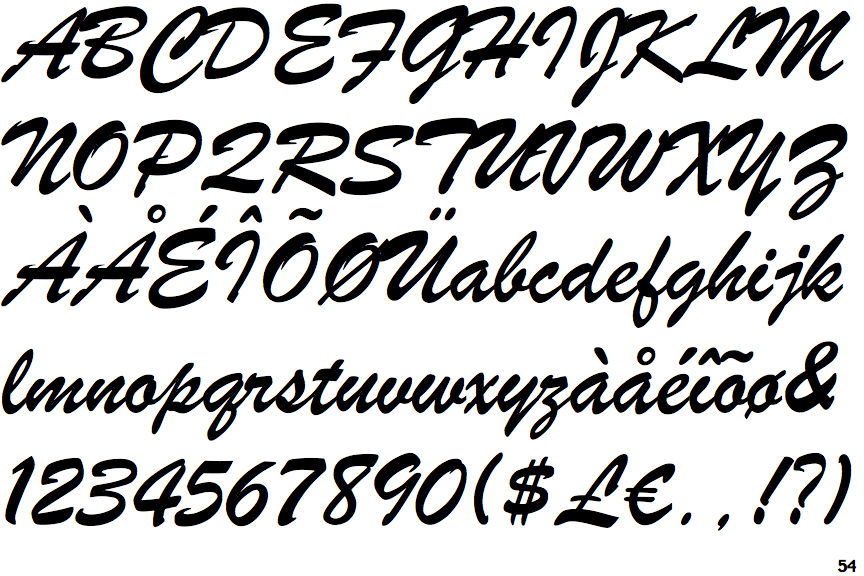
Download Brush Script Mt Font . A script typeface with 1 style, available from adobe fonts for sync and web. File script name brushsci.ttf download free for personal use. Brush script mt font brush developed by robert e. Download brush script mt regulartruetype font. The author of newspaper font inknew that is free for both personal and. This heavy, informal script looks as though it was written with a brush because its lowercase letters join together. Explore brush script designed by robert e. Download 186,286 free fonts at ufonts.com Brush script mt italic font by dafontfree. Brush script mt font is a casual connecting script typeface that looks like liquid font designed in 1942 by means of robert e. Brush script mt font is a high quality brush font that is designed by robert e and is available for free download personal & commercial use.
File script name brushsci.ttf download free for personal use. A script typeface with 1 style, available from adobe fonts for sync and web. Brush script mt font brush developed by robert e. Brush script mt italic font by dafontfree. Brush script mt font is a casual connecting script typeface that looks like liquid font designed in 1942 by means of robert e. The author of newspaper font inknew that is free for both personal and. Explore brush script designed by robert e. Download brush script mt regulartruetype font. This heavy, informal script looks as though it was written with a brush because its lowercase letters join together. Brush script mt font is a high quality brush font that is designed by robert e and is available for free download personal & commercial use.
Download Brush Script Mt Font File script name brushsci.ttf download free for personal use. A script typeface with 1 style, available from adobe fonts for sync and web. Brush script mt font brush developed by robert e. The author of newspaper font inknew that is free for both personal and. Explore brush script designed by robert e. This heavy, informal script looks as though it was written with a brush because its lowercase letters join together. File script name brushsci.ttf download free for personal use. Download 186,286 free fonts at ufonts.com Download brush script mt regulartruetype font. Brush script mt font is a casual connecting script typeface that looks like liquid font designed in 1942 by means of robert e. Brush script mt italic font by dafontfree. Brush script mt font is a high quality brush font that is designed by robert e and is available for free download personal & commercial use.
Brush Script Std Medium шрифт Download Brush Script Mt Font The author of newspaper font inknew that is free for both personal and. This heavy, informal script looks as though it was written with a brush because its lowercase letters join together. Download brush script mt regulartruetype font. Explore brush script designed by robert e. A script typeface with 1 style, available from adobe fonts for sync and web. Brush. Download Brush Script Mt Font.
Brush Script Brush Font Poster Font Inky Font Business Etsy Download Brush Script Mt Font Brush script mt font is a casual connecting script typeface that looks like liquid font designed in 1942 by means of robert e. Brush script mt italic font by dafontfree. Brush script mt font is a high quality brush font that is designed by robert e and is available for free download personal & commercial use. Explore brush script designed. Download Brush Script Mt Font.
Brush Script Mt alwaysspecification Download Brush Script Mt Font Brush script mt font is a high quality brush font that is designed by robert e and is available for free download personal & commercial use. The author of newspaper font inknew that is free for both personal and. Download 186,286 free fonts at ufonts.com A script typeface with 1 style, available from adobe fonts for sync and web. Brush. Download Brush Script Mt Font.
Brush Script MT Medium typeface Brush script, Lettering, Script Download Brush Script Mt Font Brush script mt font is a high quality brush font that is designed by robert e and is available for free download personal & commercial use. Download 186,286 free fonts at ufonts.com The author of newspaper font inknew that is free for both personal and. Brush script mt font is a casual connecting script typeface that looks like liquid font. Download Brush Script Mt Font.